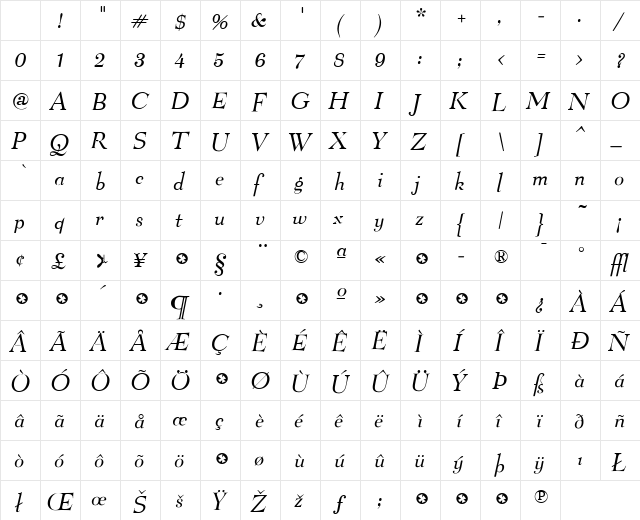
Complete Belucian Italic glyph index. Displaying only characters natively supported by Belucian Italic font.
Belucian is a composed and adaptable typeface that performs quietly and consistently across a wide range of design contexts. The slanted form adds forward momentum and visual energy.
Pro Tip: Use Belucian for emphasis, pull quotes, and subheadings where its slanted energy can add rhythm to the layout.